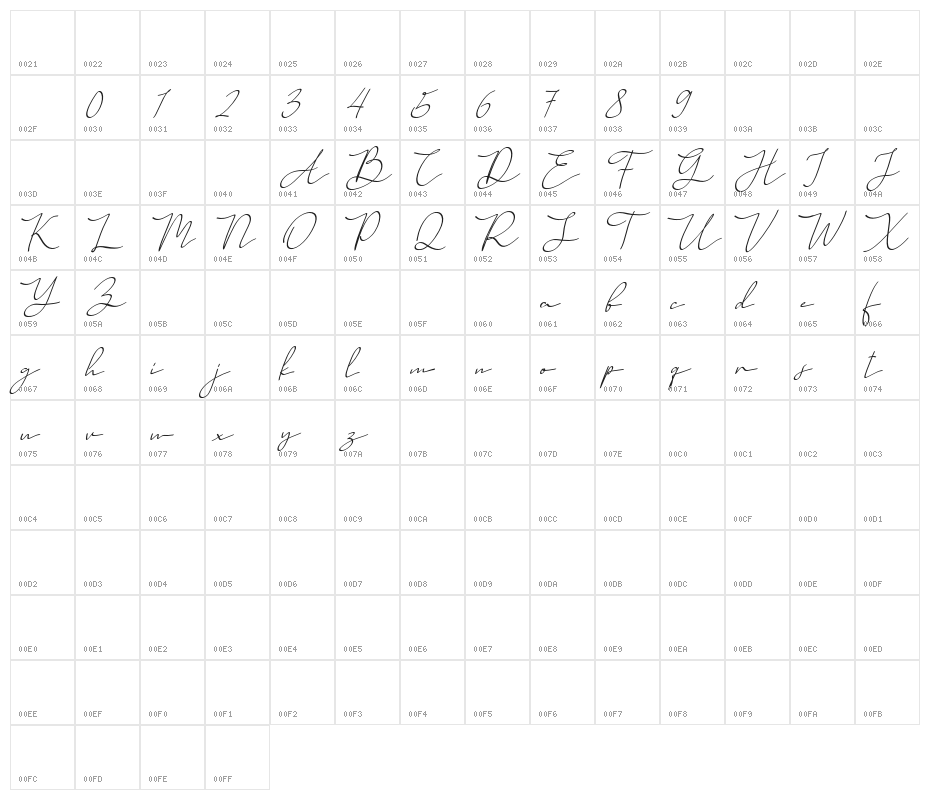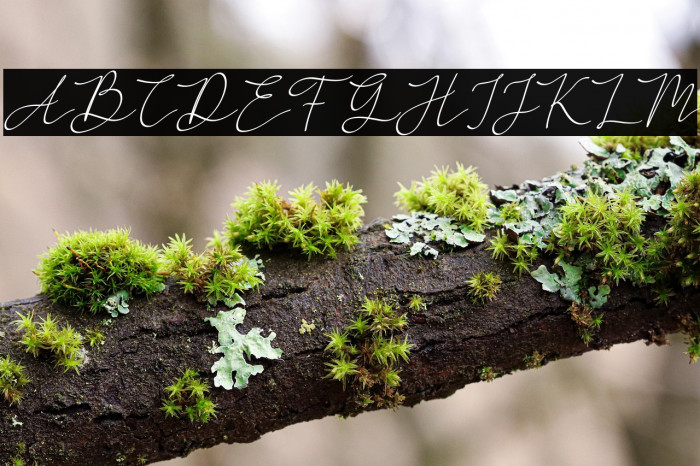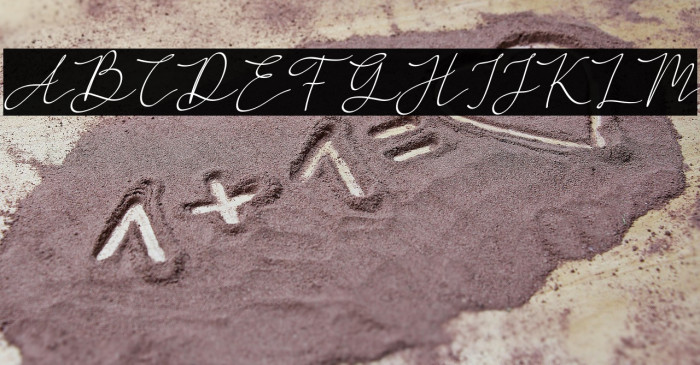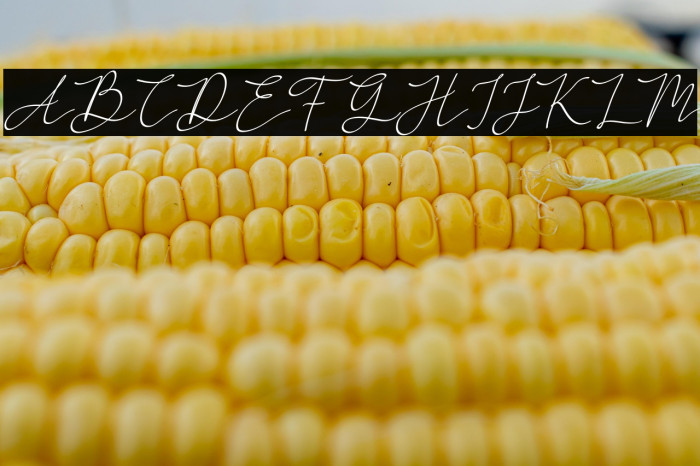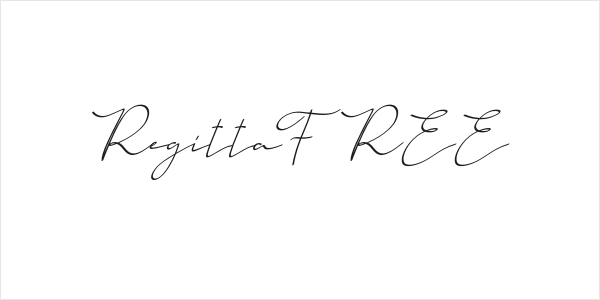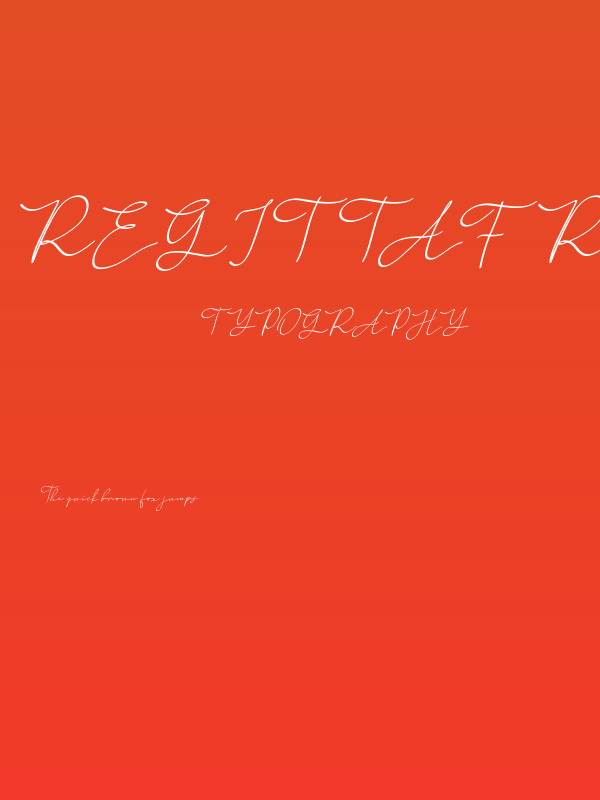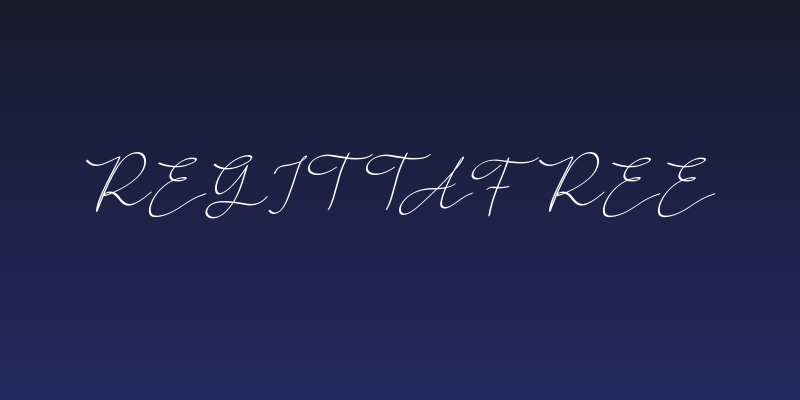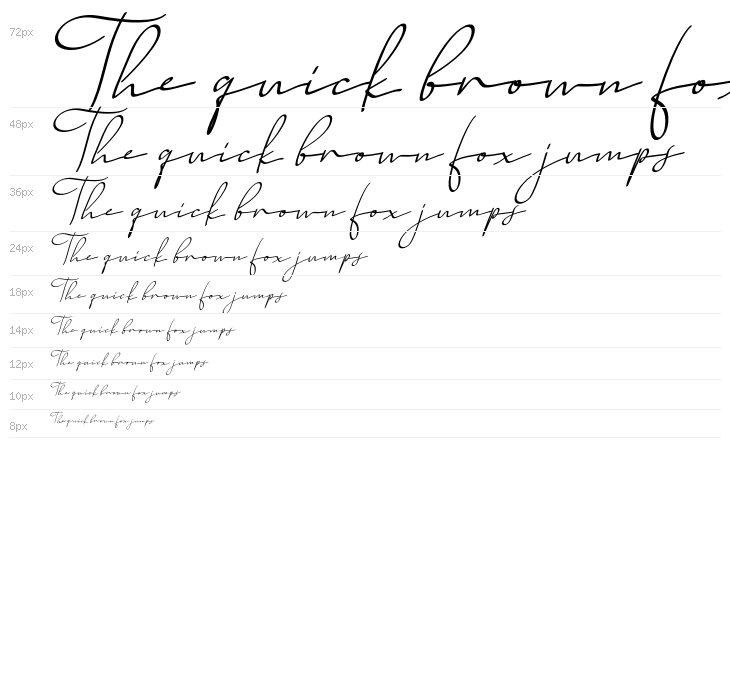
RegittaFREE Font
RegittaFREE Description
This elegant script font features fluid, cursive strokes that create a sense of movement and grace. The uppercase letters are slightly more structured, maintaining a consistent height, while the lowercase letters exhibit a more flowing and connected style. The numerals are distinct and maintain the cursive theme, adding a touch of sophistication. The special characters blend seamlessly with the overall design, ensuring versatility in various applications. The font's thin lines and delicate curves give it a refined appearance, making it suitable for formal and decorative uses.
| Overall Style | Elegant, Decorative |
| Use Case | Invitations, Branding, Signatures |
| Proposed Projects | Ideal for wedding invitations, elegant branding, personal signatures, and decorative headings. |